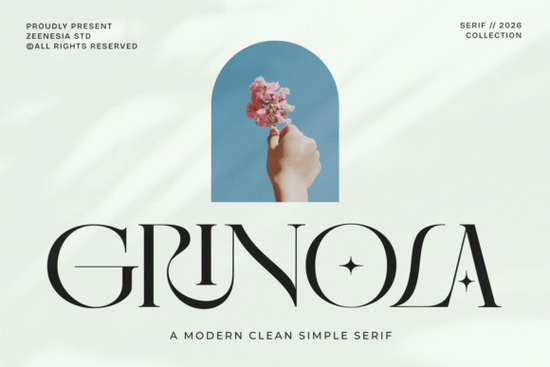
When you need a typeface that feels both luxurious and highly readable, the Grinola Font is a strong choice for your next project. This modern clean serif typeface uses graceful curves and refined contrasts to give your work a polished, editorial look. Whether you are a graphic designer working on a beauty brand logo, a crafter making wedding invitations, or a print-on-demand seller creating premium packaging, this lettering brings a soft yet sophisticated personality to the page. You can explore more options like Grinola on Creative Fabrica to see how it fits your specific layout needs.
What makes this serif typeface stand out for branding?
The main appeal of this lettering lies in its careful balance between modern minimalism and classic beauty. It features stylish alternates and unique character details that help your text stand out without looking cluttered or overly ornate. If you are used to working with typefaces that offer stylistic alternates, you will appreciate how these subtle swaps allow you to customize the mood of your headline. The refined contrasts ensure that the text remains crisp and easy to read, even at smaller sizes. Every curve is drawn to feel effortless, making it an excellent choice for brands that want to project a high-end, artistic impression without alienating their audience.
Which projects work best with elegant, minimal lettering?
Small business owners and crafters often ask where this specific style shines the most. Because of its artistic letterforms, it is perfect for fashion labels, beauty product packaging, and high-end wedding stationery. Print-on-demand sellers can use it to create sophisticated apparel graphics, minimalist tote bag designs, or elegant ceramic mug typography. The soft personality of the font ensures that it feels approachable, yet premium. If you find that you need something slightly more ornate for a specific holiday project or a highly detailed poster, you might also want to browse more decorative serif options to keep your font library versatile and ready for any client request.
How do you pair this modern clean serif with other styles?
Pairing fonts can be tricky, but this typeface is highly adaptable because of its clean foundation. Since it has a soft, elegant personality, it pairs beautifully with simple, geometric sans-serif fonts for your body text. This creates a nice visual hierarchy where the serif handles the emotion and the sans-serif handles the readability. For a more romantic or seasonal look, you can mix it with scripts with festive flourishes for subheadings, quotes, or accent words. The key is to let the main serif typeface do the heavy lifting for your primary headings, keeping the overall design clean, focused, and visually balanced.
Quick tips for using this typeface in your next layout:
- Test the tracking: Give the letters a little extra breathing room in all-caps headlines to highlight the refined contrasts and make the design feel more luxurious.
- Use the alternates strategically: Swap out standard characters for the stylish alternates on the first and last letters of a word to beautifully frame your text.
- Keep body text simple: Pair this elegant serif with a clean, highly readable sans-serif for your paragraphs to maintain a modern, uncluttered look.
- Mind the background: This font works best on clean, solid backgrounds or subtle textures so the graceful curves remain the focal point.